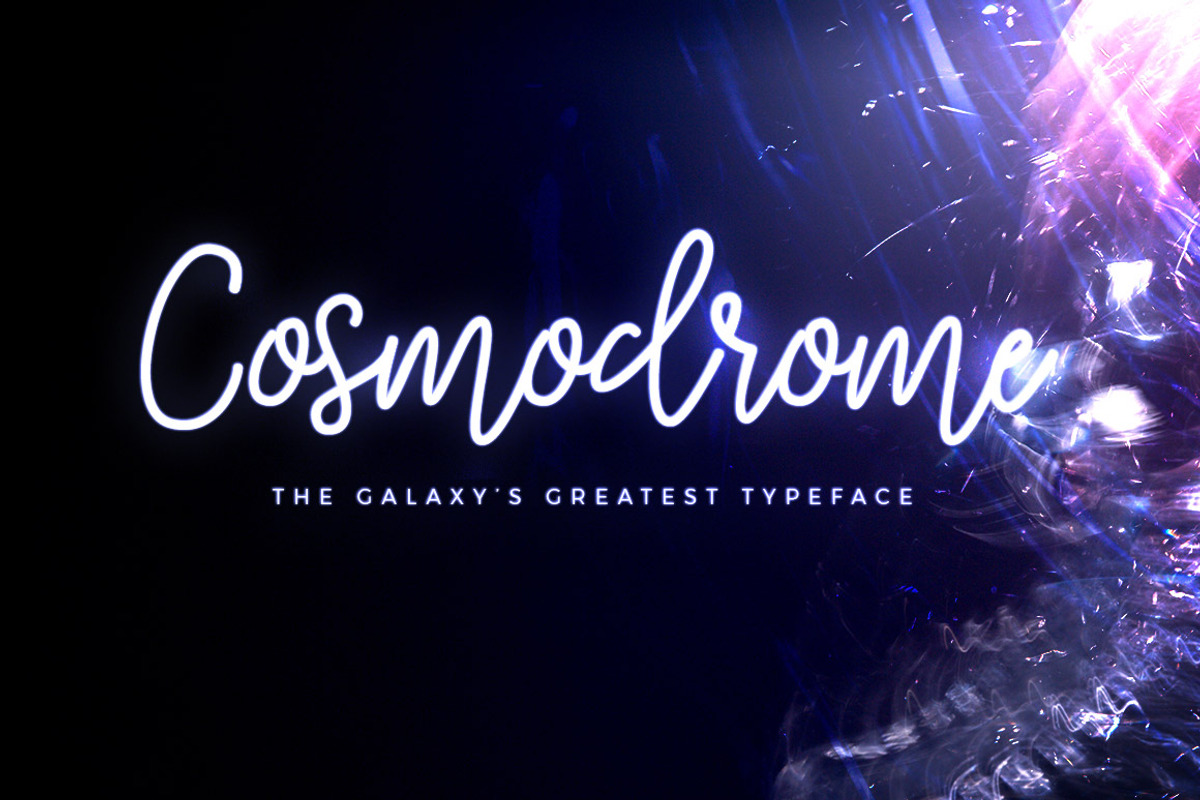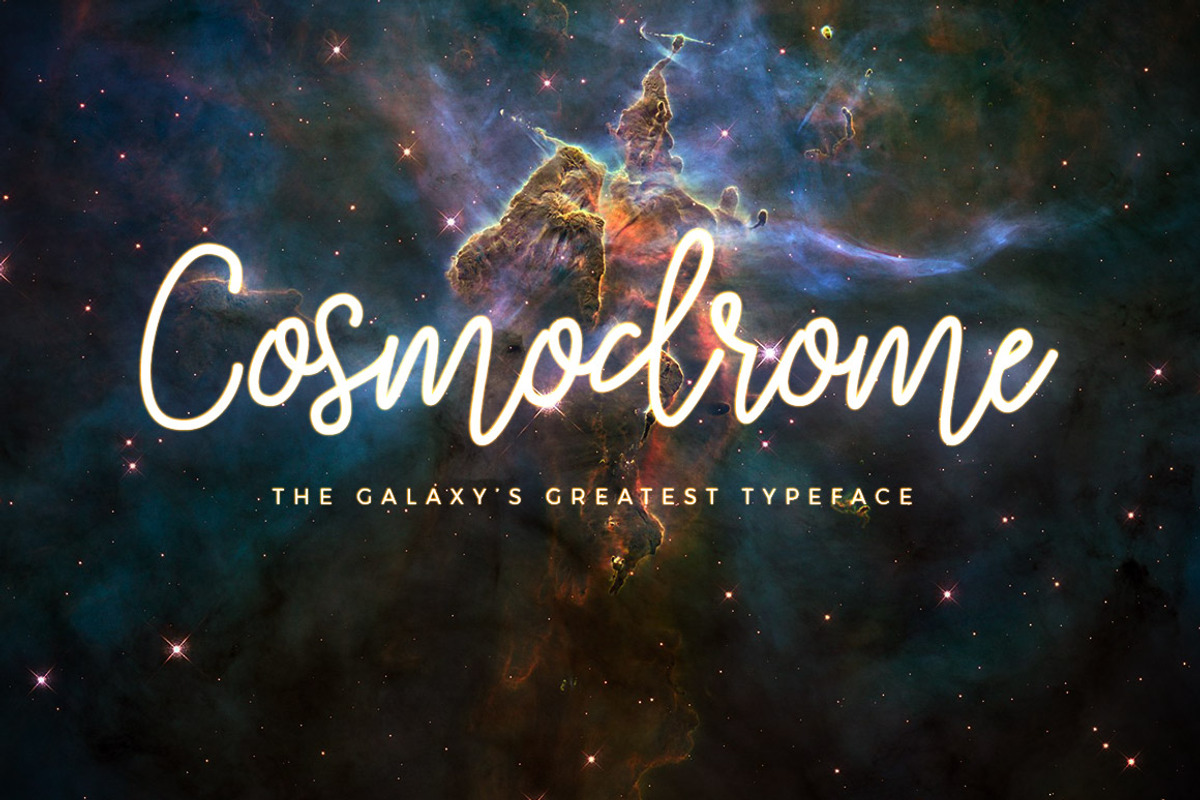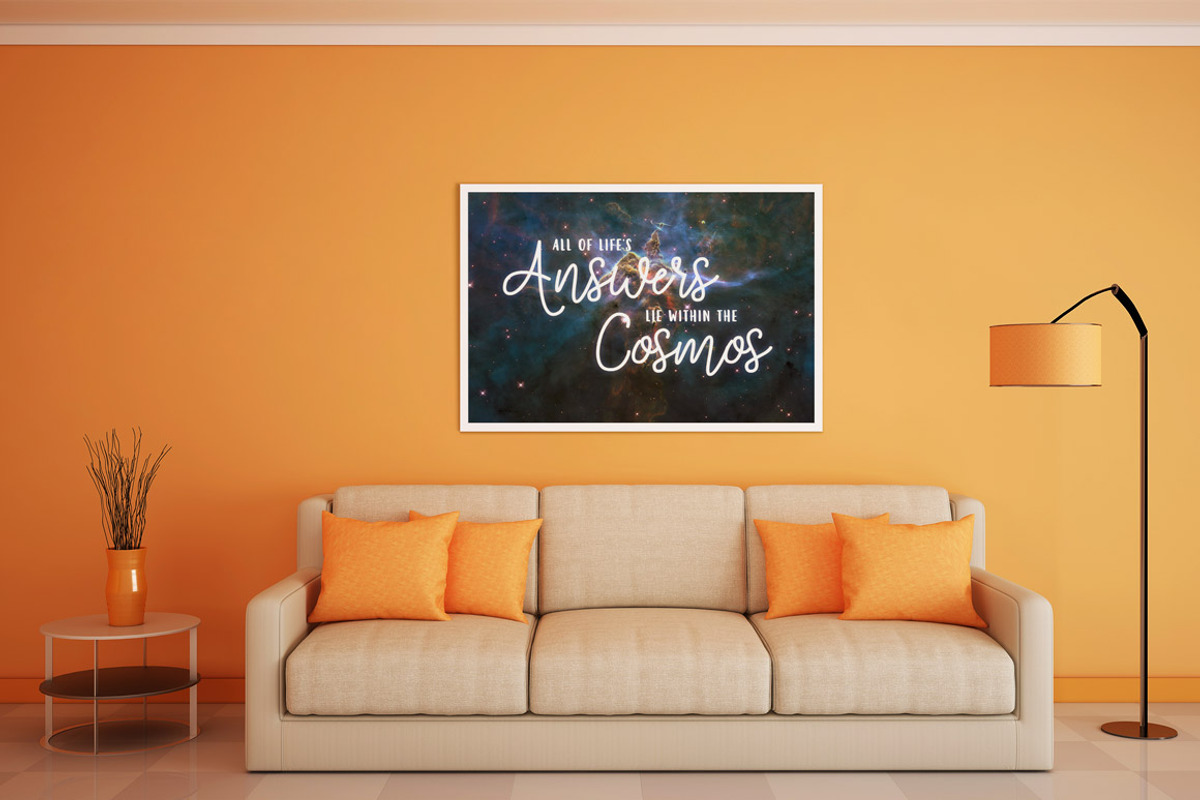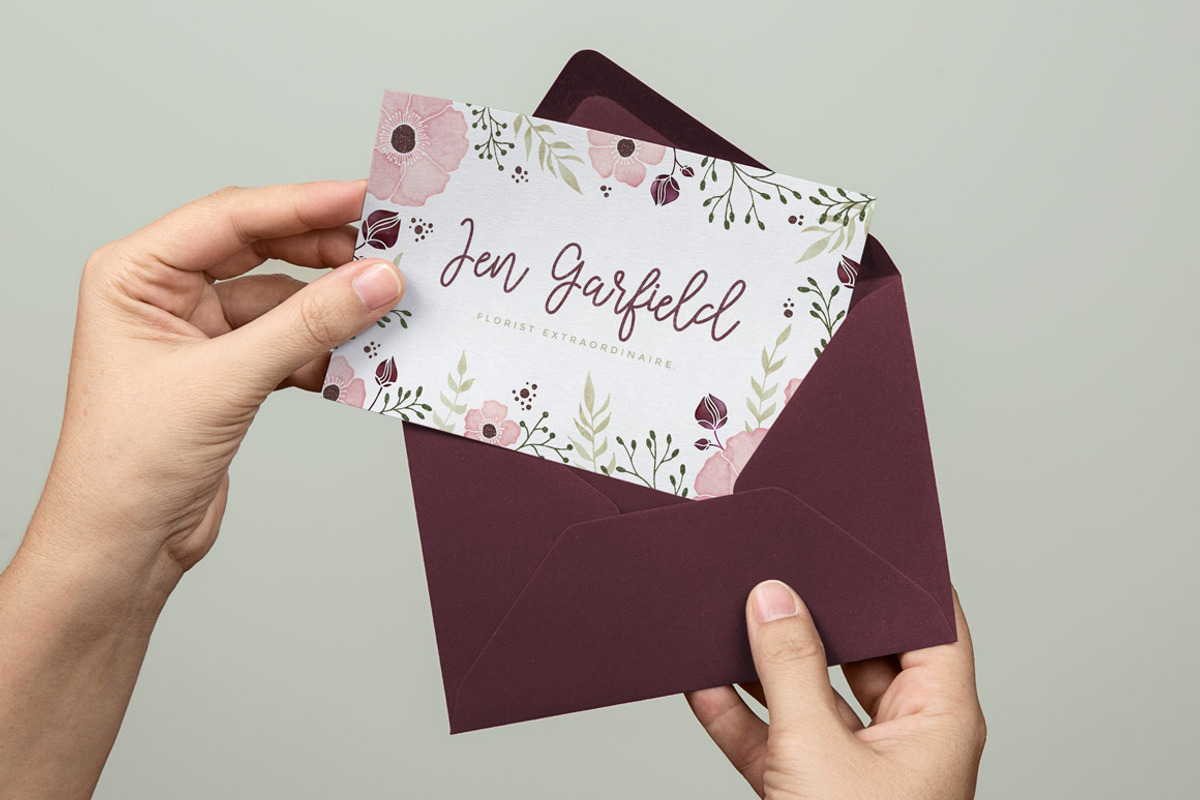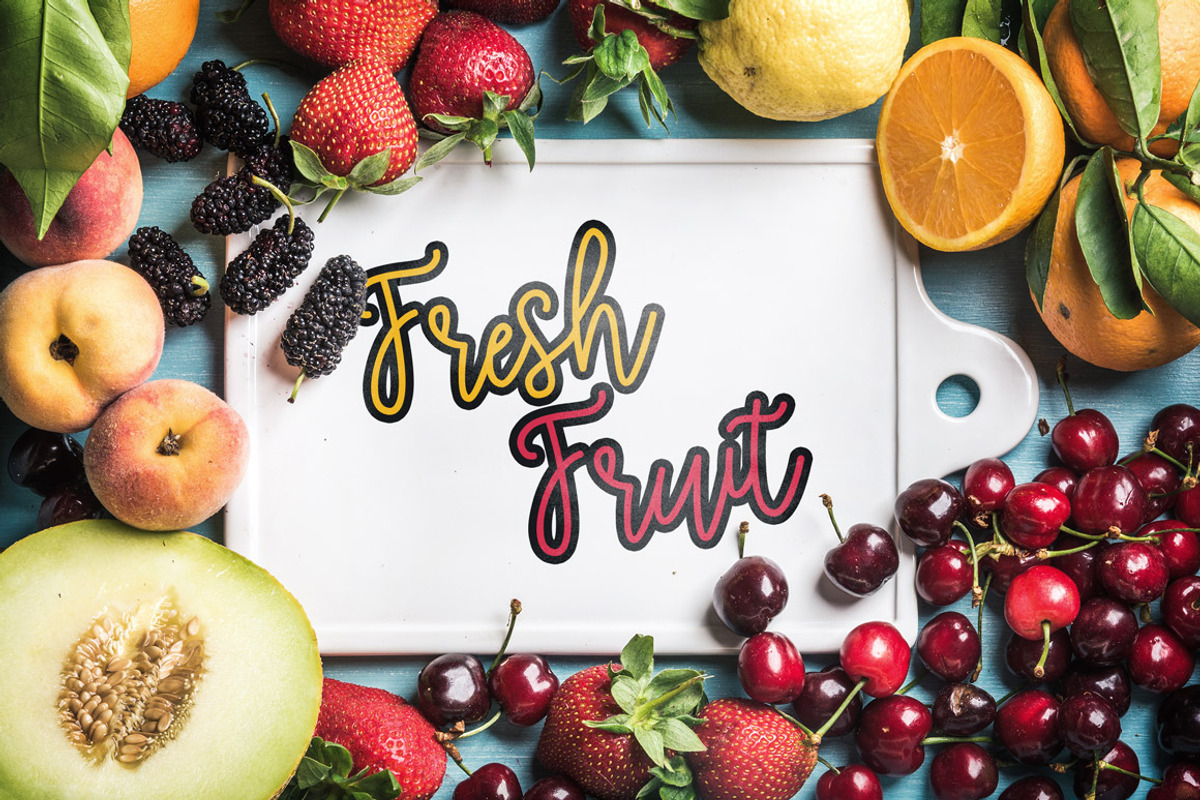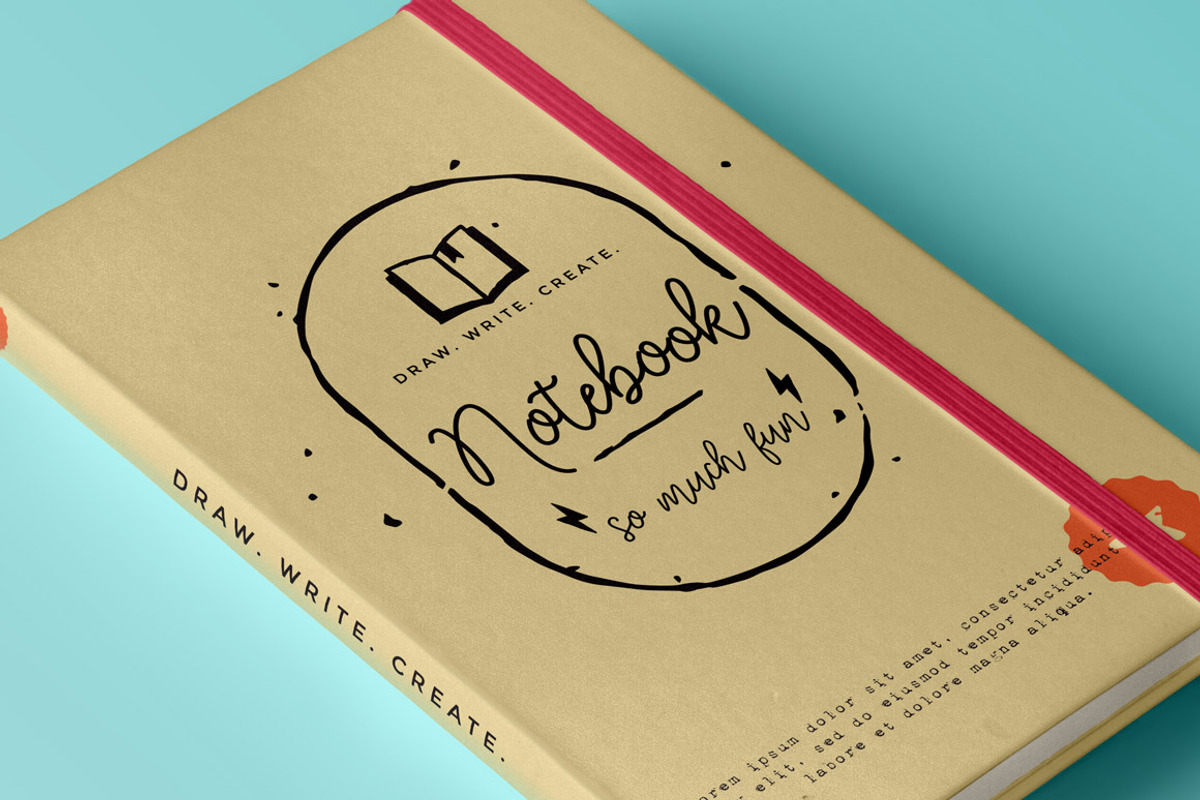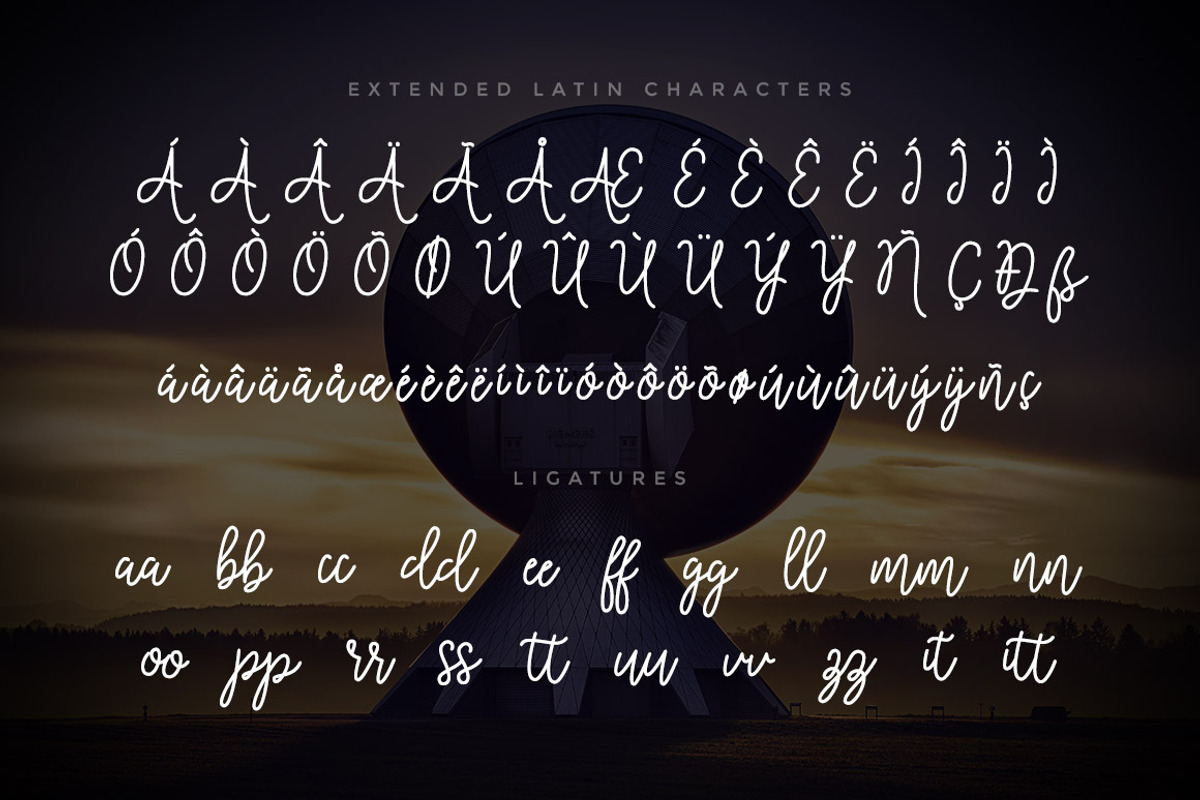
Cosmodrome Monoline Script Font
Cosmodrome Monoline Script Font by Design Panoply is a font selected for branding, posters, packaging, typography.
- Included are standard Latin characters, extended Latin characters for multilingual support, select ligatures, and a complete set of numbers
Why Cosmodrome Monoline Script Font is worth a look
Cosmodrome Monoline Script Font by Design Panoply fits naturally into Branding, posters, packaging, typography.